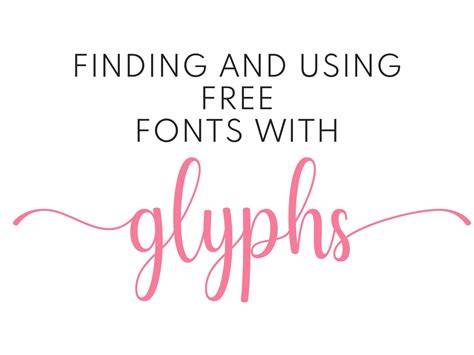
What You Need To Know About Glyphs Fonts
What Are Glyphs Fonts?
Glyphs fonts are a type of font that contains symbols or images instead of letters, numbers, or punctuation. They are commonly used to enhance the overall look and feel of a design, as well as to add a sense of visual interest. Glyphs fonts can be found in a variety of styles, such as calligraphy, modern, and vintage. They are often used in logos, websites, and other graphic design projects.
The Benefits of Using Glyphs Fonts
Glyphs fonts can be a great way to add a unique visual element to your design. They can also help to add a sense of depth and complexity to a design, making it look more professional and polished. Glyphs fonts can also be used to create a more interesting and engaging experience for viewers. For example, if you are trying to convey a particular message or emotion, a glyph font can provide a unique way to get that message across.
How Can You Use Glyphs Fonts?
Glyphs fonts can be used in a variety of ways. They can be used to create logos, as well as to add visual interest to websites, flyers, banners, and other graphic design projects. You can also use them to create unique lettering for text-based projects, such as books, magazines, and other publications. Additionally, they can be used to create decorative borders and backgrounds.
Where Can You Find Glyphs Fonts?
Make Your Design Stand Out With Glyphs Fonts
Glyphs fonts can be a great way to give your design a unique and eye-catching look. Whether you are creating a logo, website, or other graphic design project, glyphs fonts can add a sense of visual interest and depth to your work. With so many options available, you are sure to find the perfect font for your project.